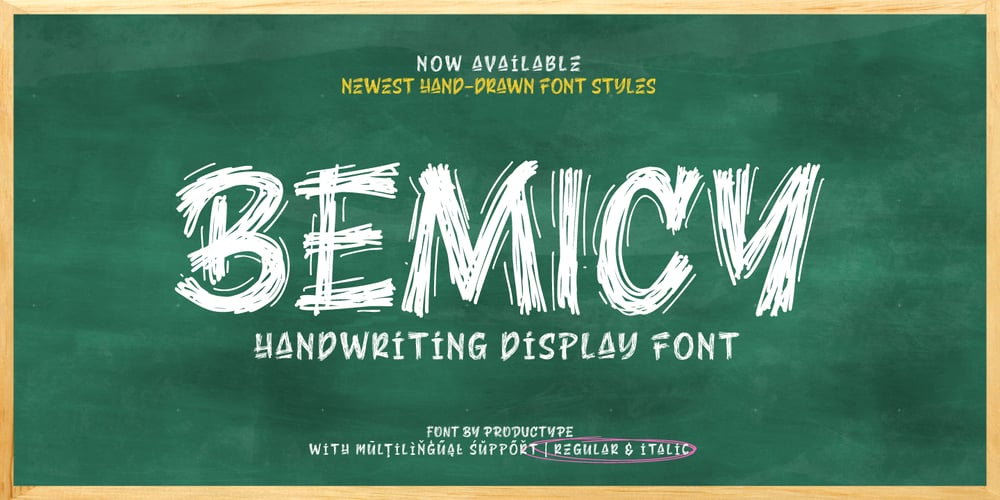
Bemicy
Bemicy font
Bemicy Font Family was designed by Lita Faolina and published by Product Type. Bemicy contains 2 styles and family package options. Say hello to Bemicy, a display font that combines handwritten touches with scribbled elements. This font comes with uniqueness and wit, bringing an experimental feel to each character.Each letter in Bemicy exudes a touch of scribbled handwriting, creating a stunningly experimental feel. Bemicy brings artistic uniqueness to your projects, giving them a look that is full of character and distinction.Bemicy is a great choice for projects that require an experimental, scribbled hand feel. Whether you’re designing promotional materials, posters, or other works of art, these fonts provide an unforgettable personal touch.Get the Bemicy Display Font now and bring artistic distinction to every character.